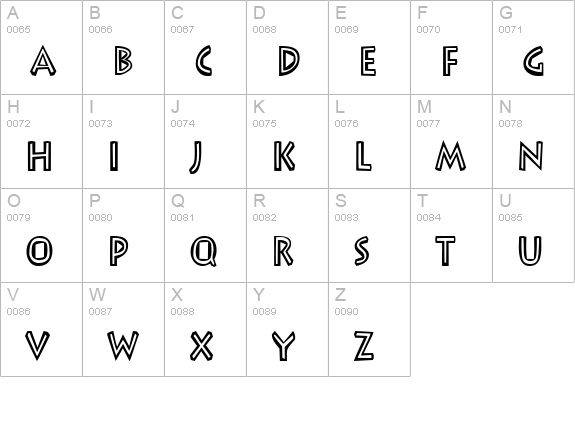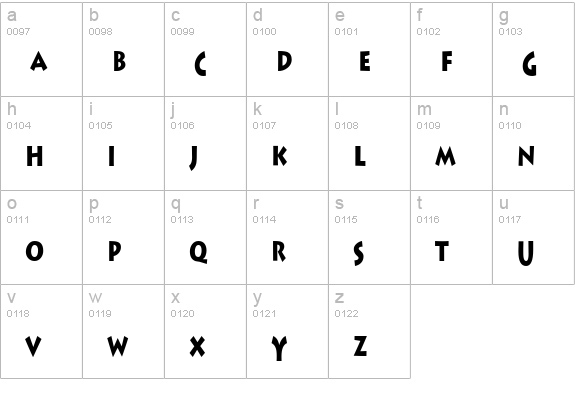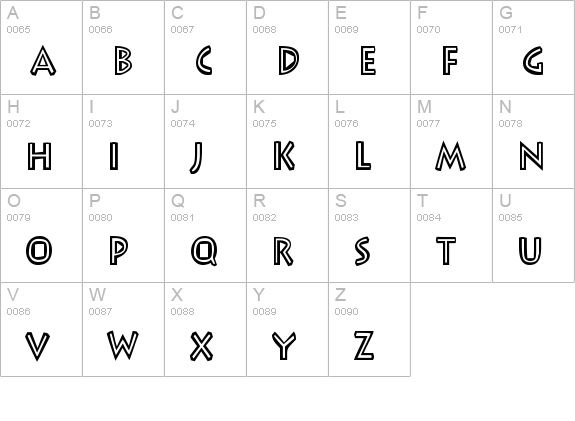
Afrika T Ubuntu Font Details
Introducing Afrika T Ubuntu, a stunning and versatile font that embodies the essence of Ubuntu, the African philosophy of interconnectedness and unity. With its elegant and modern design, Afrika T Ubuntu is the perfect choice for any project that seeks to inspire collaboration, inclusivity, and creativity. This font is not only visually appealing but also carries a powerful message of community and togetherness. It is meticulously crafted to provide a harmonious balance between legibility and aesthetics, making it suitable for a wide range of applications, from branding and advertising to web design and print. One of the most remarkable features of Afrika T Ubuntu is that it is available for free. That's right; you can download this exceptional font at no cost from FontsMarket.com. By making Afrika T Ubuntu freely accessible, its creators aim to empower individuals and organizations to express themselves creatively without any barriers. Whether you're a designer, a writer, or a business owner, Afrika T Ubuntu is here to enhance your projects and amplify your message. Its clean lines, subtle curves, and well-defined letterforms ensure that your content will be presented with clarity and sophistication. With Afrika T Ubuntu, you can bring a touch of Ubuntu's spirit into your work, spreading the values of unity, diversity, and collaboration. So why wait? Download Afrika T Ubuntu today and let your creativity flourish. Experience the beauty of this font and unlock a world of possibilities for your designs.